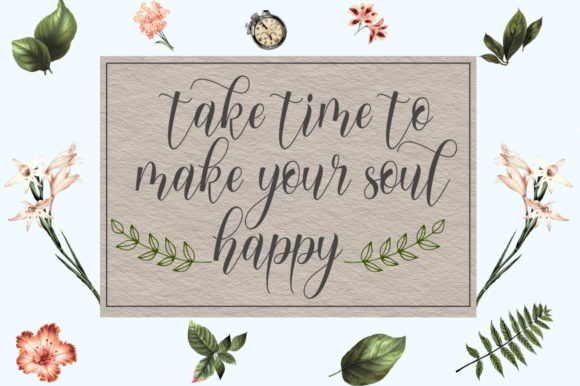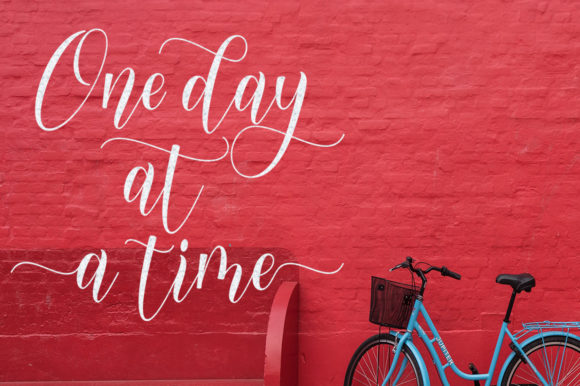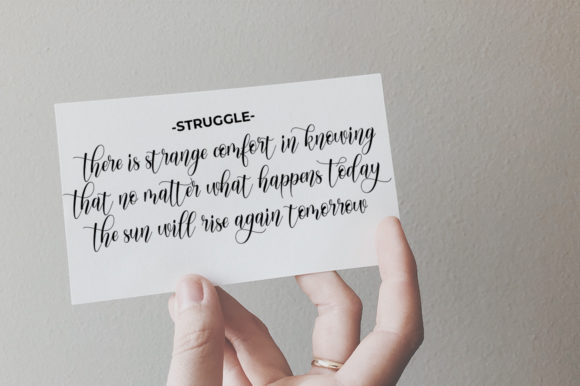
Introduction to Palmita Font
Have you ever been working on a creative project and stumbled upon the perfect font, one that perfectly captures the essence of your design and elevates it to the next level? That’s exactly what happened to many designers when they discovered the Palmita Font. This joyful and modern calligraphy font is a game-changer for any project that requires a touch of romance and whimsy.
Whether you’re working on a wedding invitation, a baby shower card, or any other design that calls for a sweet and playful feel, the Palmita Font is an excellent choice. Its bouncy, beautiful, and flexible design makes it highly versatile and perfect for a wide range of creative projects. With its high-quality design and transparent background, you can rest assured that your design will stand out from the crowd.
Key Features of Palmita Font
- High-quality font designed for creative projects, ideal for graphic designers and artists.
- Palmita Font comes with a transparent background, allowing for easy customization and versatility.
- Unique, hand-drawn style with a mix of bold and delicate elements, making it perfect for adding a personal touch to designs.
Honest Review: Palmita Font
I recently had the chance to work with the Palmita Font, and I must say it’s been a game-changer for my creative project. This high-quality font is a valuable design resource that has elevated my work to the next level.
What works well: ✨ The font is highly customizable, allowing me to adjust the size, color, and spacing to suit my needs. The transparent background option is also a huge plus, making it easy to integrate with other design elements.
What doesn’t: ⚠️ The font is only available in a limited number of languages, which can be a bit of a challenge for designers working on global projects. Additionally, the font can be a bit overwhelming if used in large quantities, so be sure to use it sparingly.
Overall, I’m thoroughly impressed with the Palmita Font. Its high-quality design, ease of use, and free download make it a must-have design resource for any creative project. I highly recommend giving it a try!
Palmita Font Overview
The Palmita Font is a high-quality, free download design resource perfect for any creative project. With its unique and elegant style, this font is ideal for adding a touch of sophistication to your designs.
Tips for Getting the Most Out of Palmita Font
Experiment with different font sizes and styles to achieve the desired effect.
Common Use Cases for Palmita Font
The Palmita Font is ideal for:
Business cards and brochures
Blog posts and articles